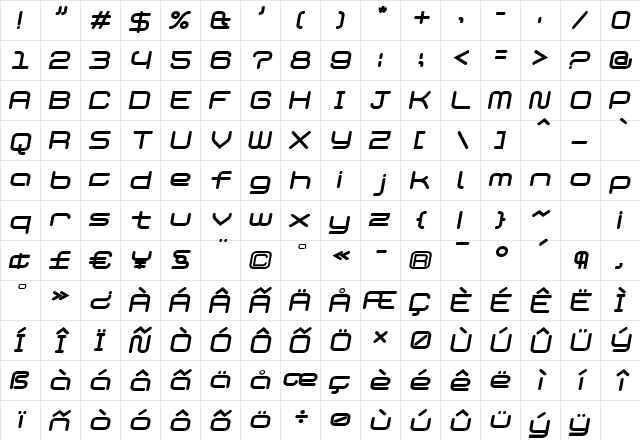
PhantomBold Italic Regular
Design Context for PhantomBold Italic Typeface
PhantomBold Italic is a composed and adaptable typeface that performs quietly and consistently across a wide range of design contexts. The dynamic lean of this cut emphasises speed and emphasis in any layout. Its bold stroke weight gives it real presence on the page.